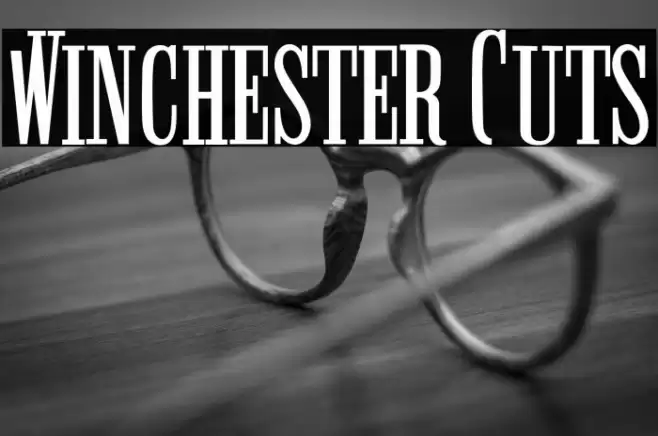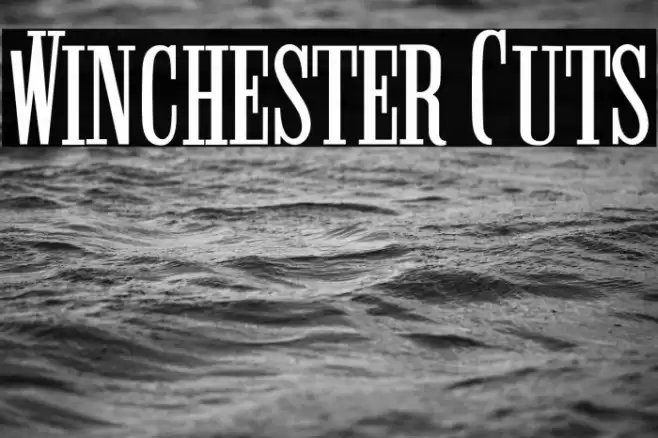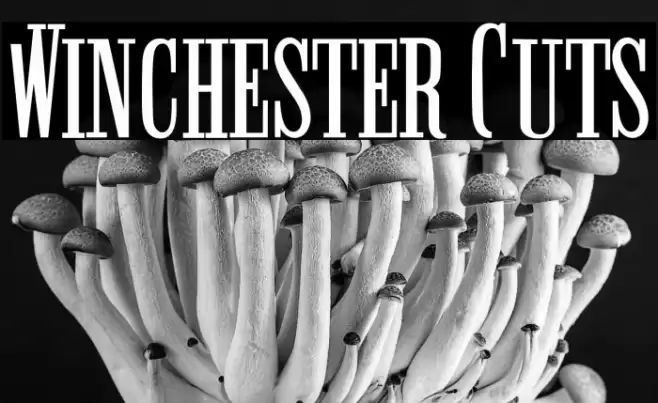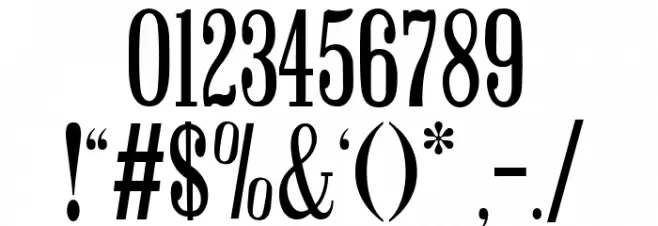
Winchester Cuts Font
Winchester Cuts Description
This font features a bold and condensed style with high contrast between thick and thin strokes, giving it a dramatic and impactful appearance. The uppercase letters are tall and narrow, with sharp serifs that add a touch of elegance and sophistication. The lowercase letters maintain the same condensed form, ensuring consistency and readability. The numerals are similarly styled, aligning well with the overall aesthetic. Special characters are included, maintaining the same bold and condensed characteristics, making this font versatile for various uses.
A bold, condensed serif font with high contrast and sharp serifs from Regular fonts.
- Proposed Projects: Ideal for headlines, posters, and branding projects where a strong and elegant impact is desired.